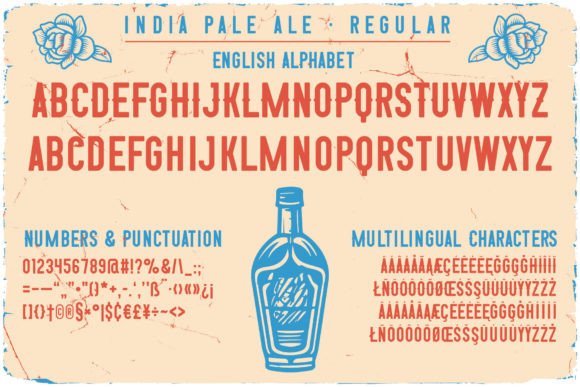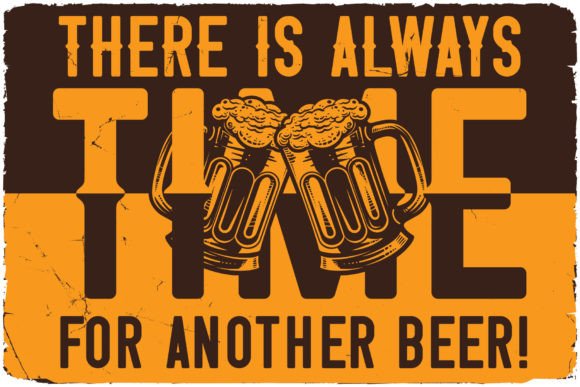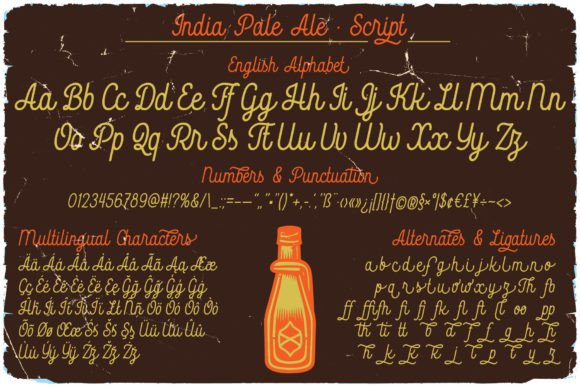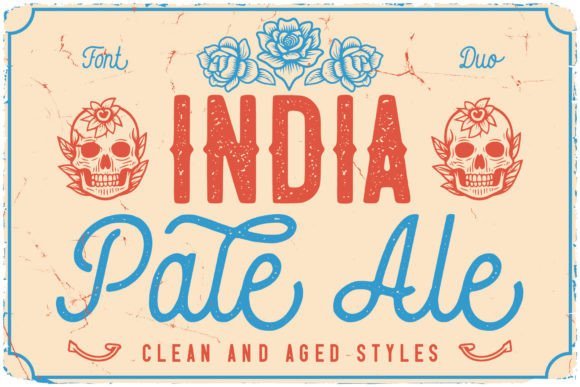
Introducing vintage label font duo named India Pale Ale.
These two fonts have additional characters and multilingual support (check out all available characters on previews) Also, the Script font has a lot of stylistic alternates and ligatures.